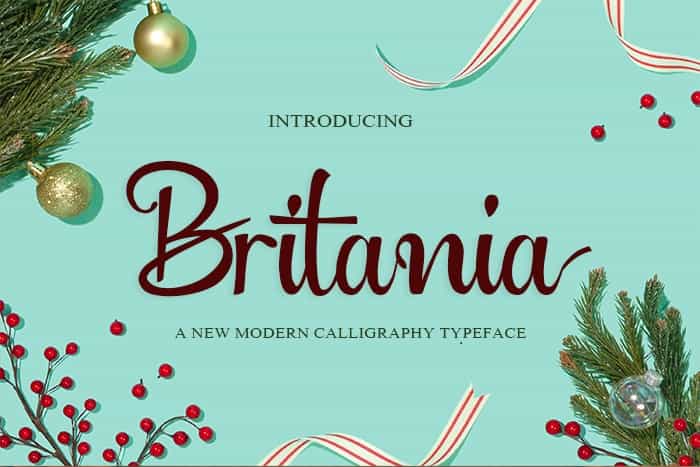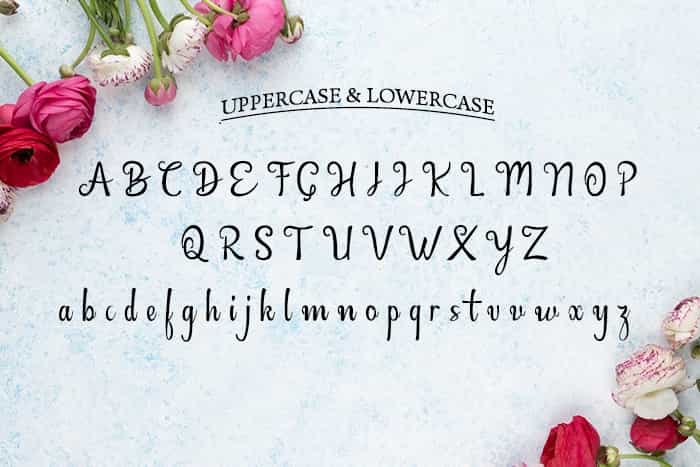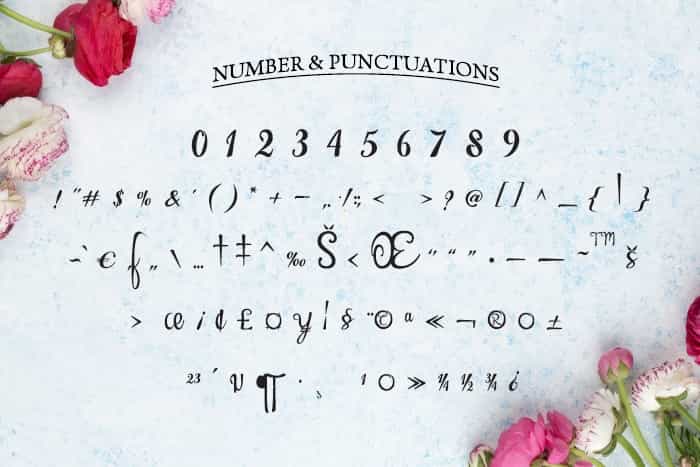
Britania is a fine and stylized script font suitable for use in branding of professional and corporate projects. Since PUA encoded you have all the glyphs, swashes, and symbols of the font at your fingertips without having to search for them! Maximise the impact of your designs by incorporating Britania into them.